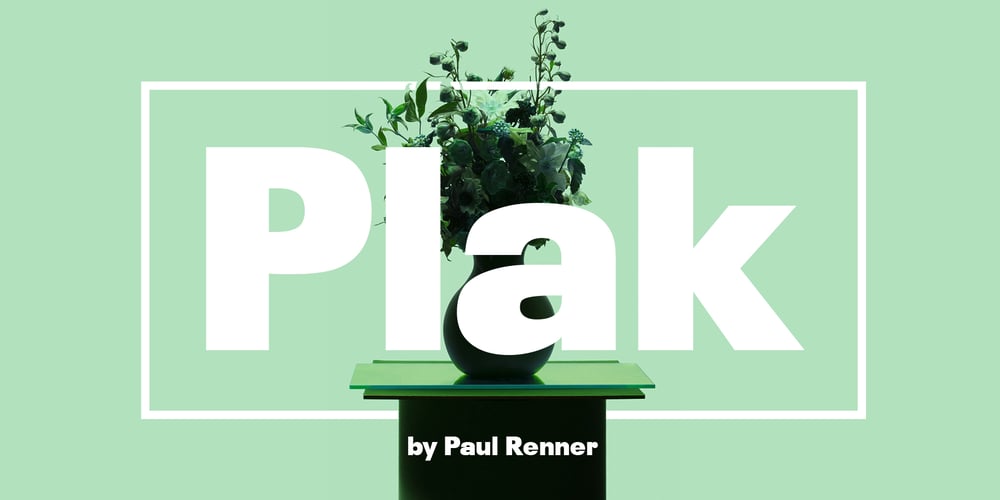
Plak Font Family was designed by Paul Renner and published by Linotype. Plak contains 3 styles and family package options. Plak is a typeface originally created by famous German designer Paul Renner in 1930. Paul Renner is also the designer of the Futura typefaces. Like Futura, Plak is a sans serif design. But its unique qualities include its heaviness, and its un-geometric lowercase a.””